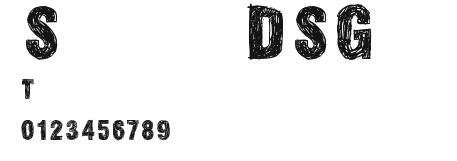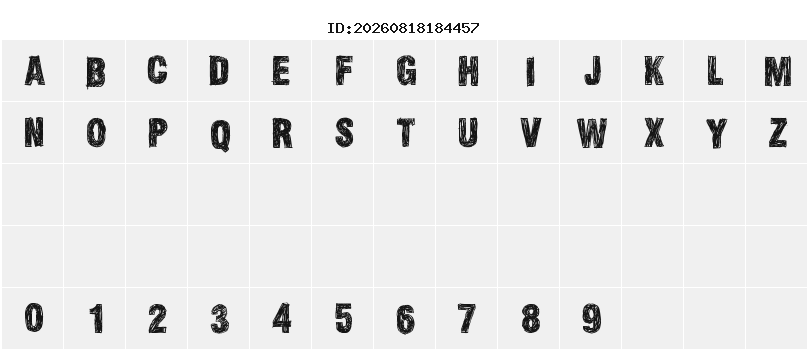
• Font Name: Skizzed DSG
• Full Font Name: Skizzed DSG
About Skizzed DSG.ttf
Skizzed DSG.ttf is a modern, elegant sans-serif font designed for ultimate readability and visual harmony. Perfect for branding, headlines, web design, and print materials.